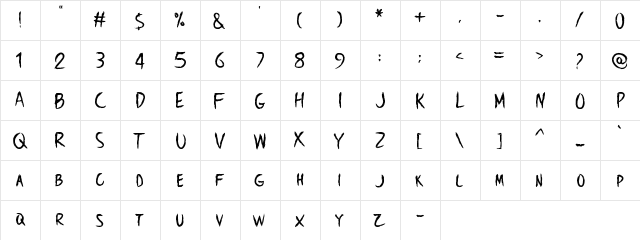
BrownCrow - Personal Use Only Regular
| Designer | Md. Shohail Bhuian |
Design Context for BrownCrow - Personal Use Only Typeface
BrownCrow - Personal Use Only is a composed and adaptable typeface that performs quietly and consistently across a wide range of design contexts.
Pro Tip: Use BrownCrow - Personal Use Only in both headline and body roles to test its range before committing to a single application.